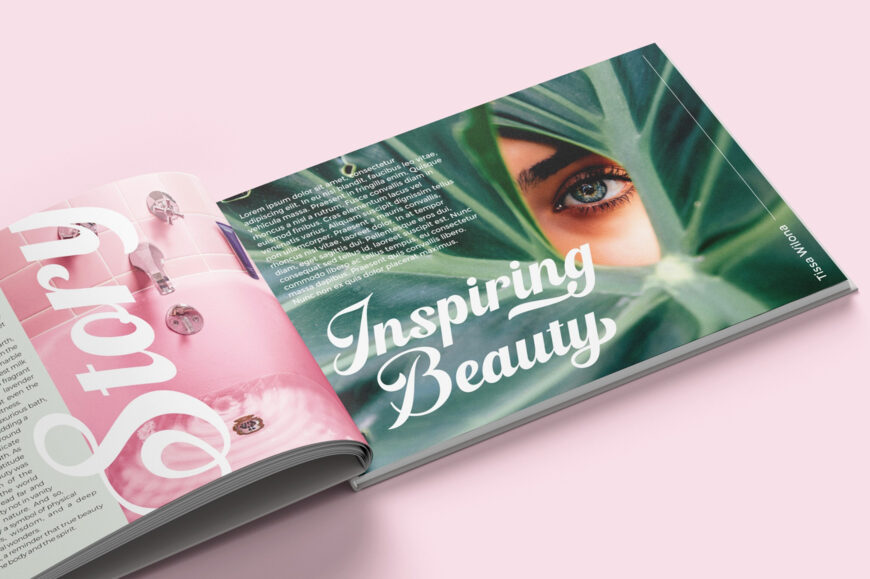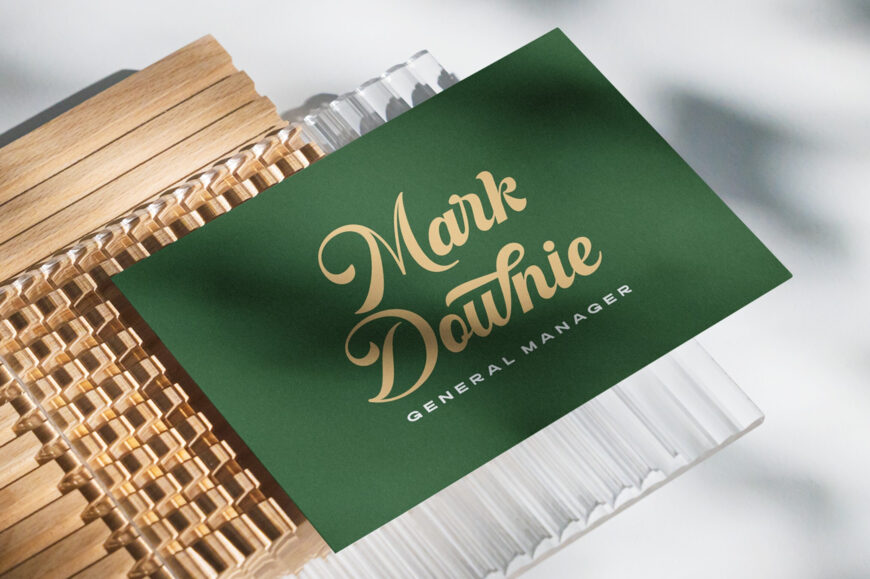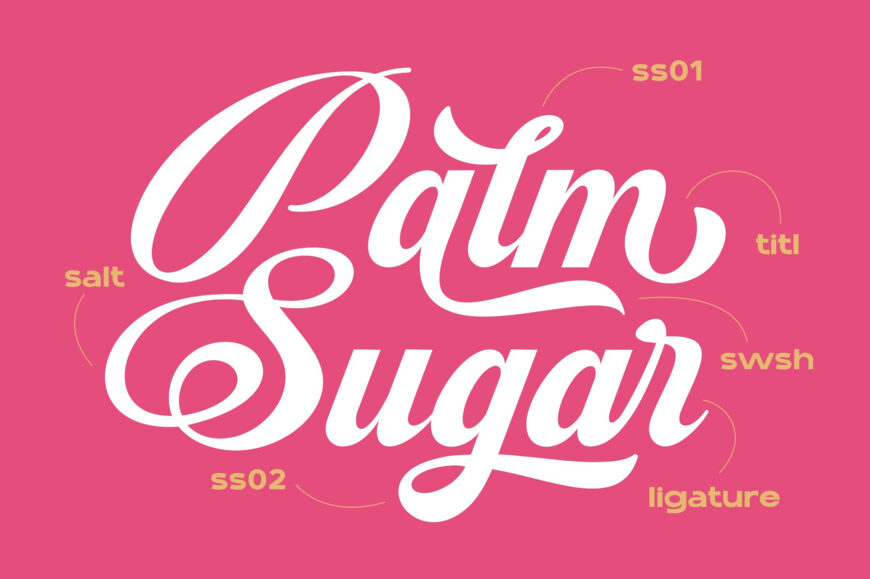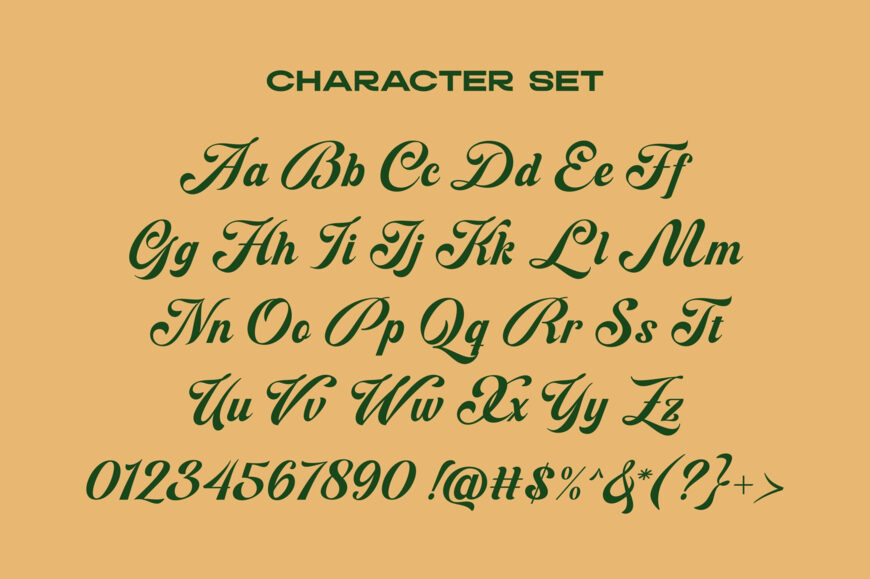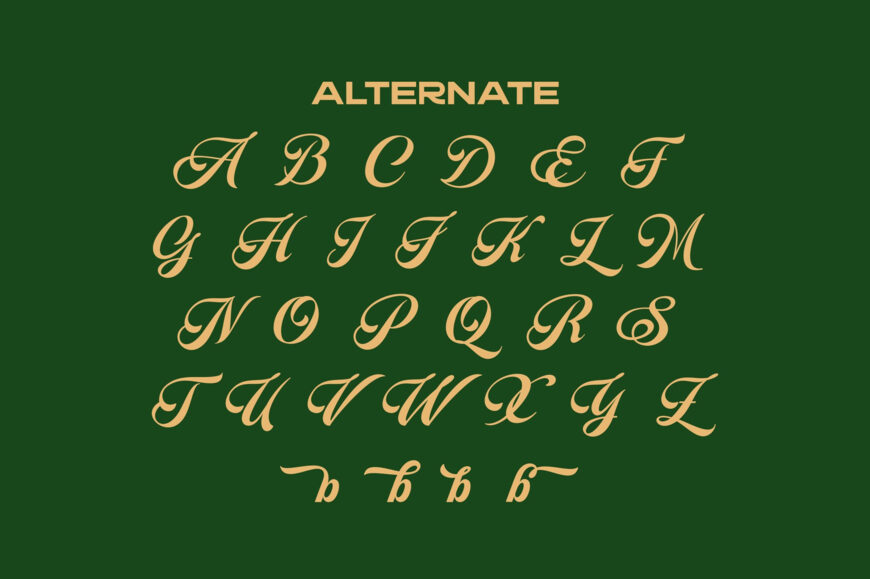
Blagkine Font
Blagkine is a bold script font with a classic style. This font is equipped with stylistic sets, ligatures, contextual alternates, and multilingual support, making it versatile and easy to use in any creative project.
With its striking and unique appearance, Blagkine is perfect for enhancing your work, such as logotypes, branding, product packaging, invitations, apparel design, web design, magazine covers, book titles, and more.